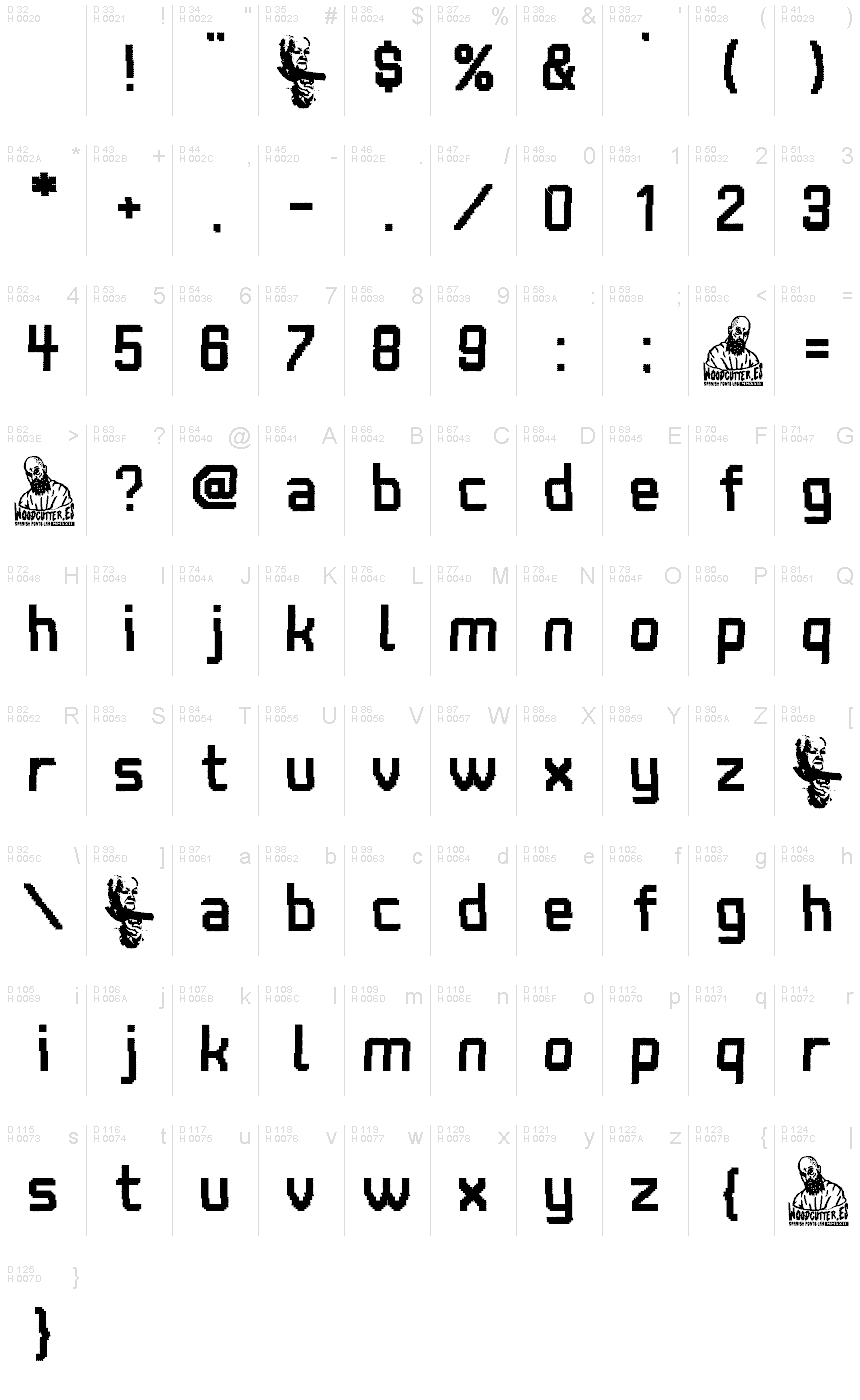
Killer Grandma
Killer Grandma font by Woodcutter is a pixelated and distorted display font with a retro-inspired digital aesthetic. This free font evokes nostalgia and reminds of early video games combine jaggy contour with subtle glitches on its letters.